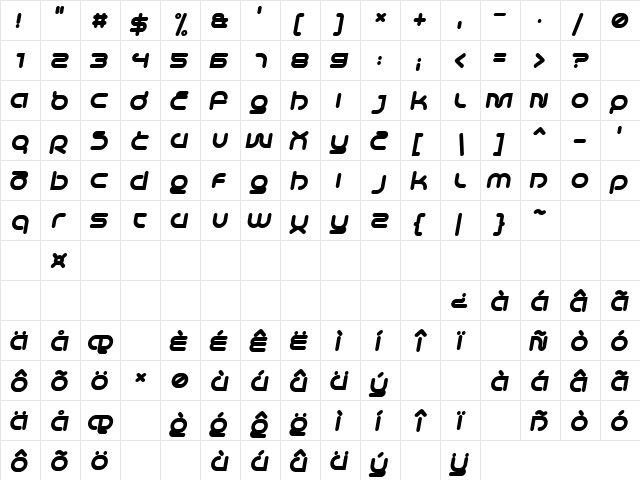
Life in Space BoldItalic Font Preview
Design Context for Life in Space Typeface
Life in Space takes a measured approach to typography — its balanced proportions and neutral character make it a reliable workhorse for both digital and print work. Its italic angle brings a sense of urgency and motion to the letterforms. The heavy weight commands attention and anchors typographic hierarchies.
Pro Tip: Try Life in Space for annotation and caption copy alongside an upright companion — the contrast in angle creates a dynamic but ordered typographic system.